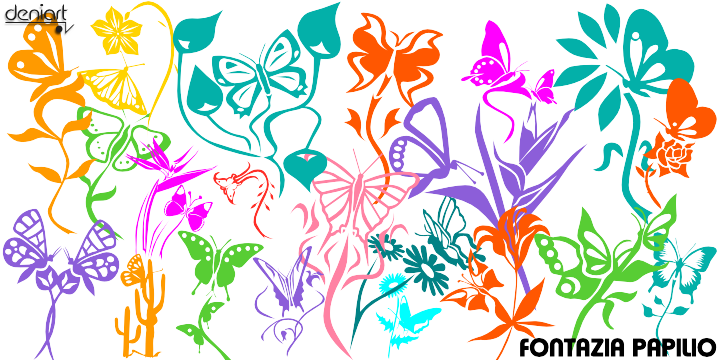
Create your fontisimo butterfly garden with this original fontazia typeface featuring 52 unique hand-drawn butterfly inspired flowers!
Whether you're looking for a modern papillion fluttering about or a metamorphosis experience, bring all your butterfly garden fantasies to life with these subtly bold, subtly complex inspirations.